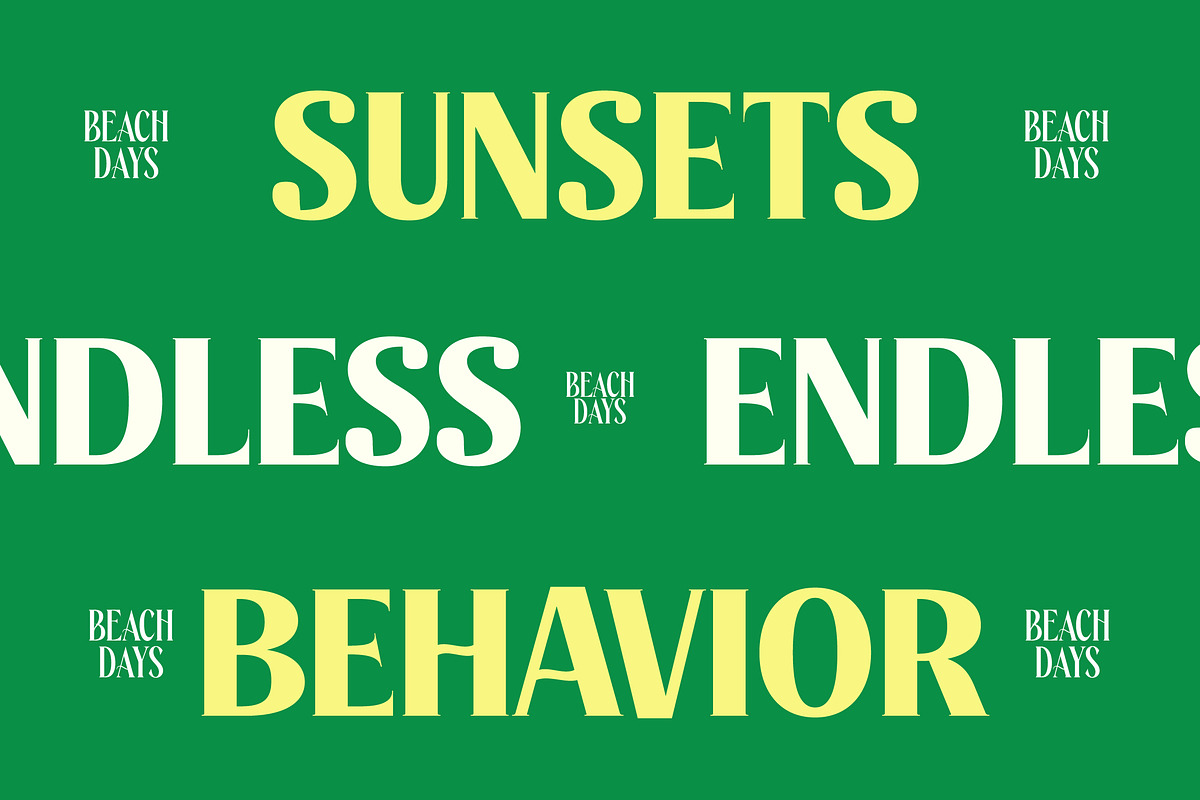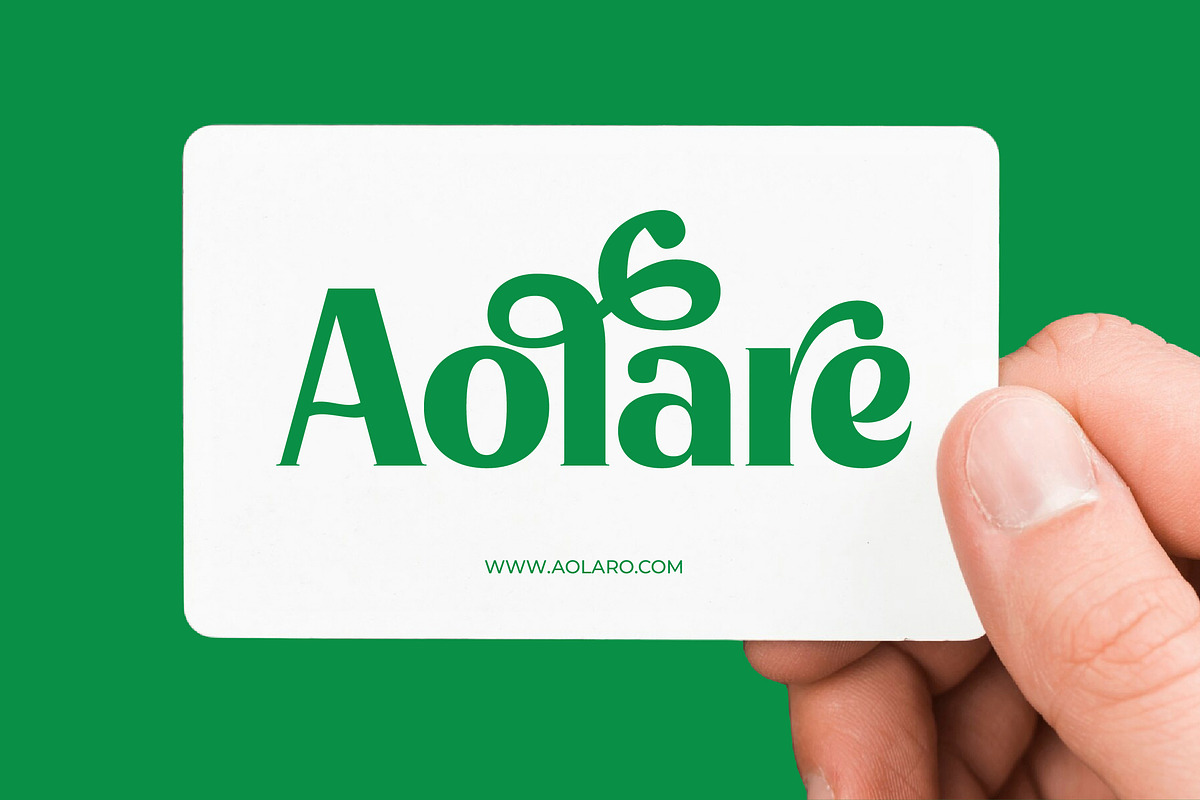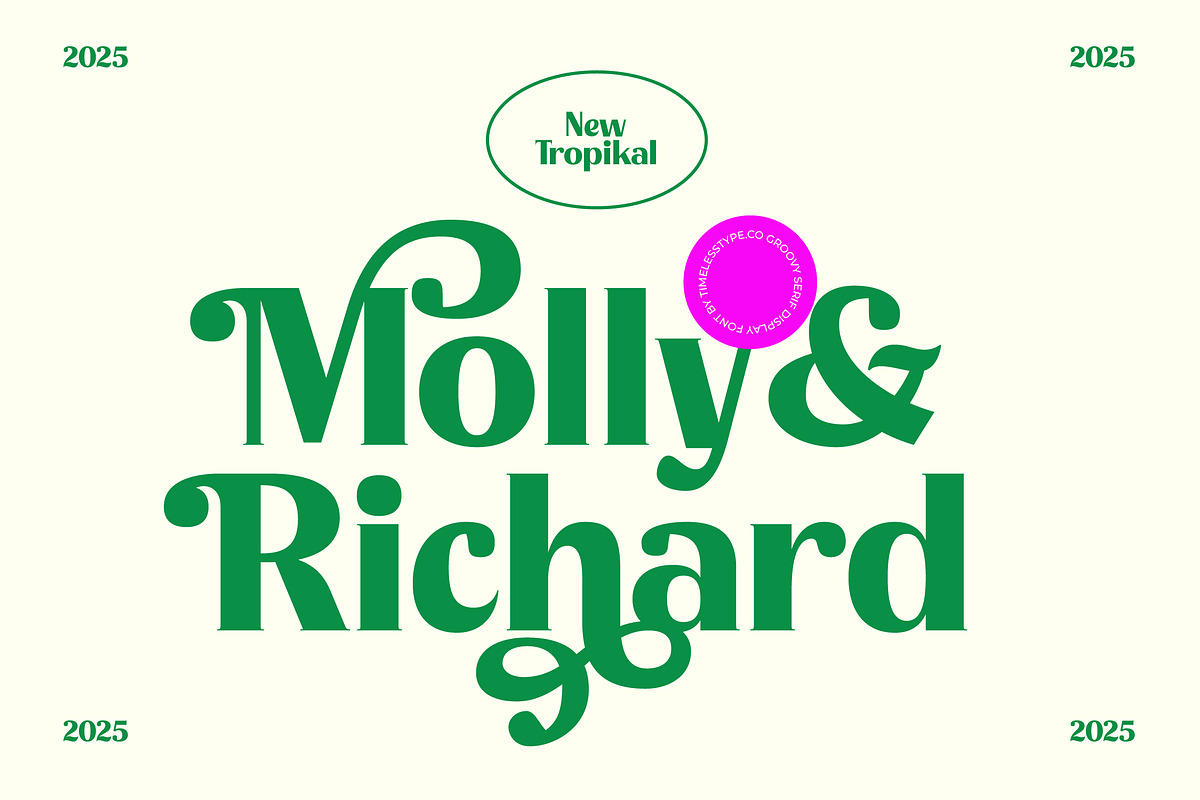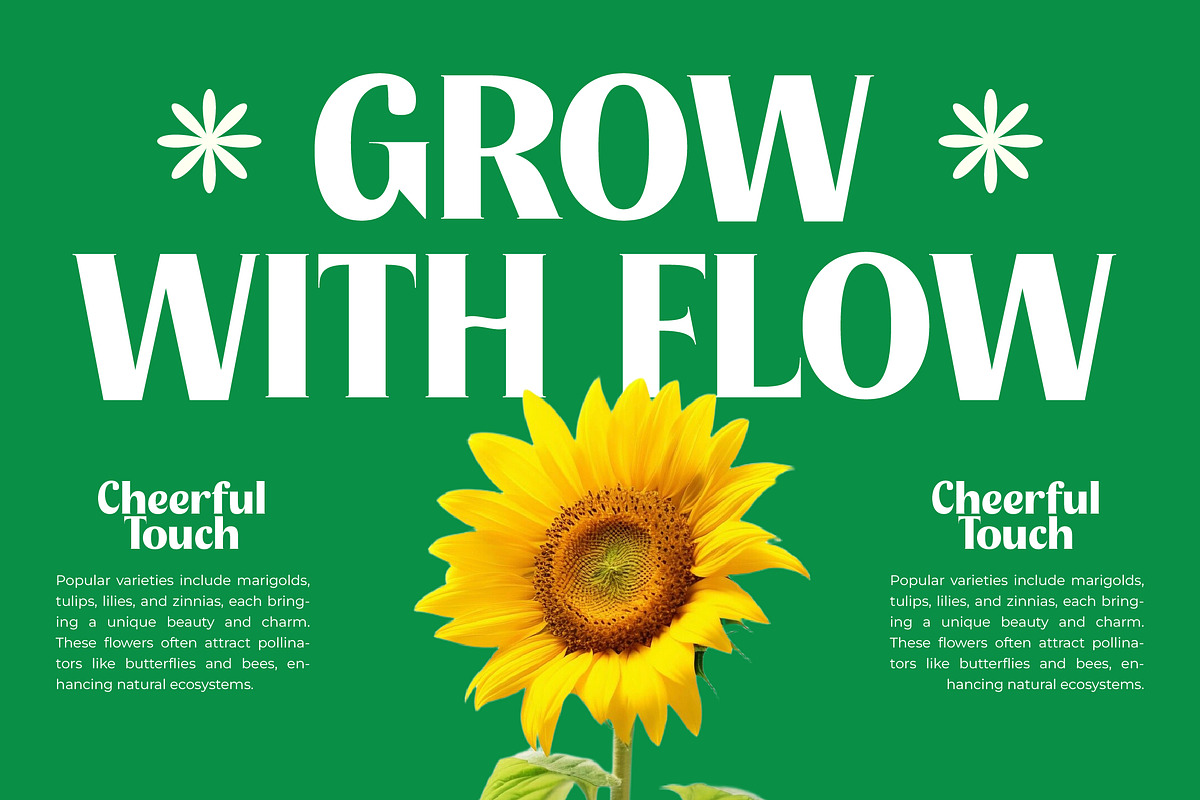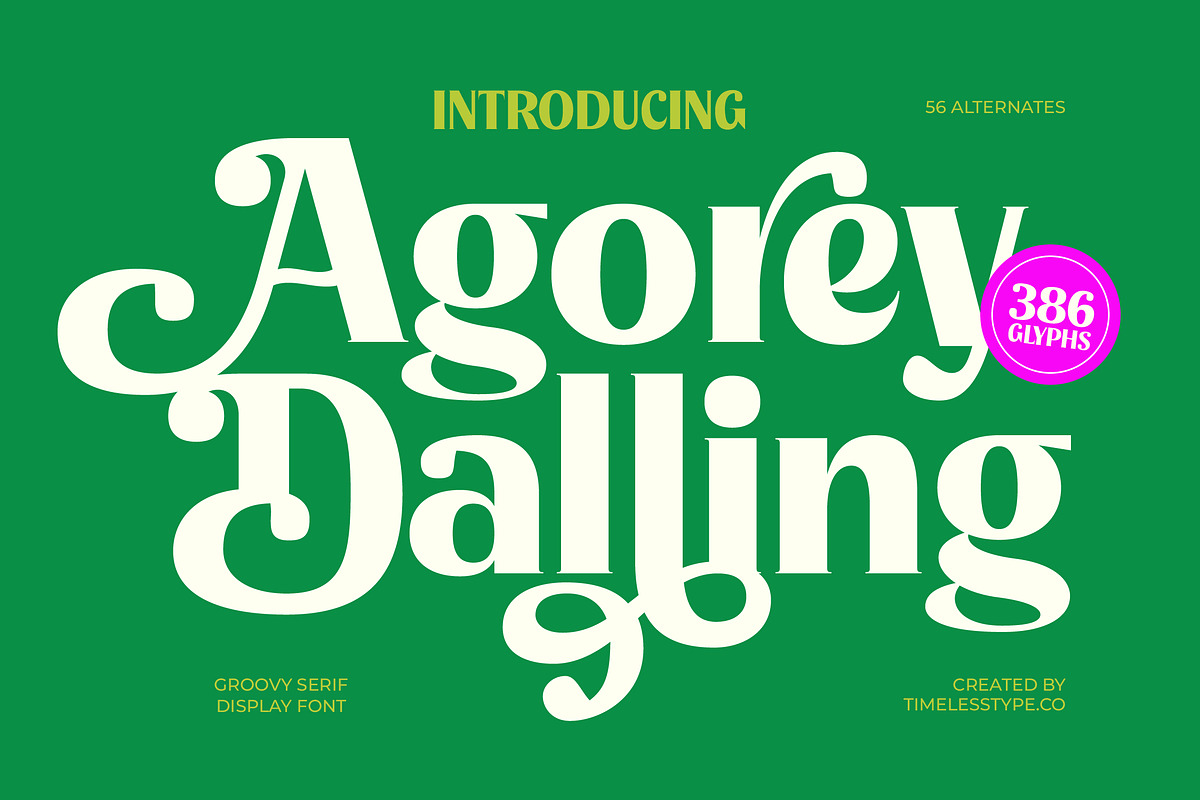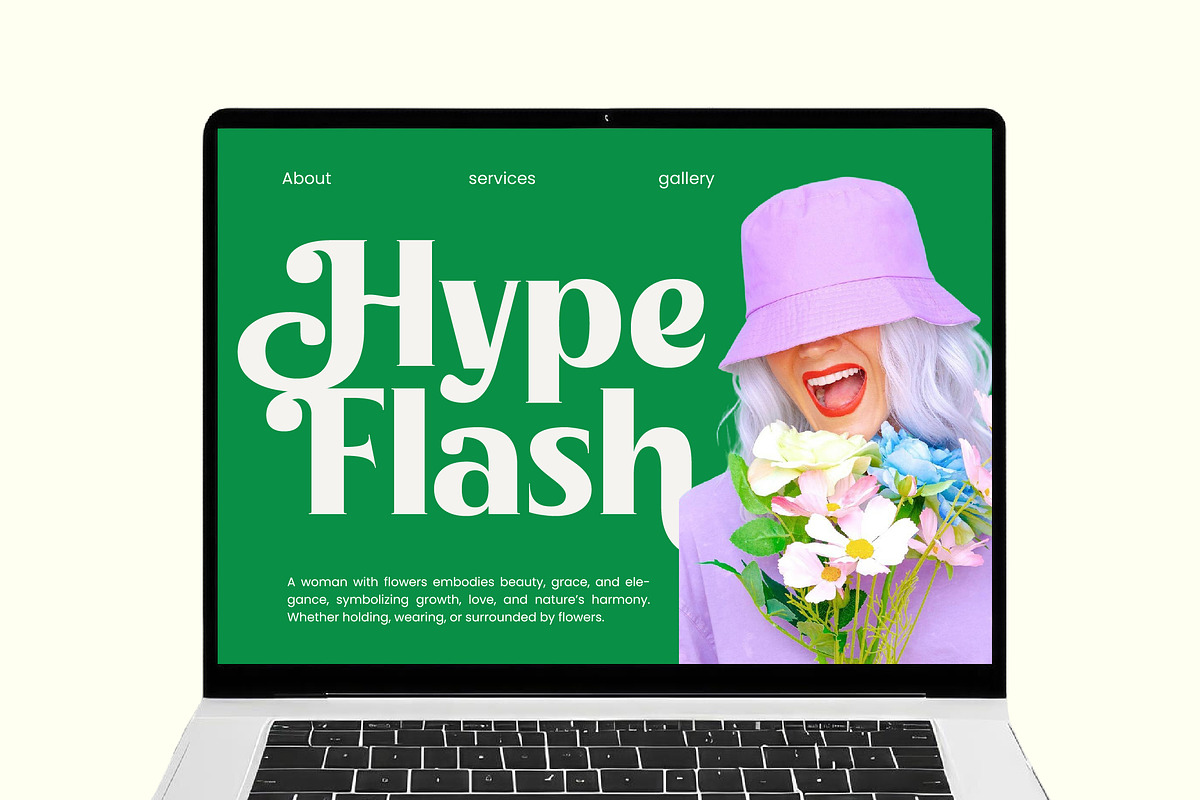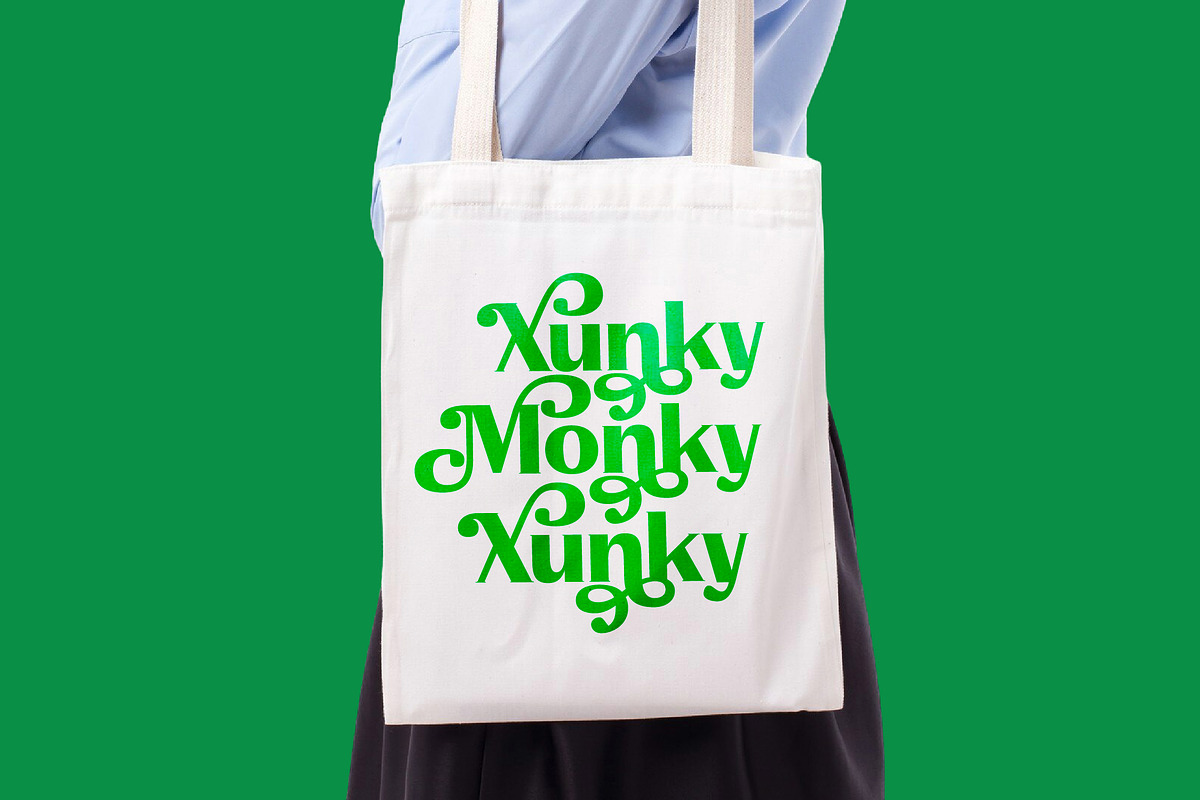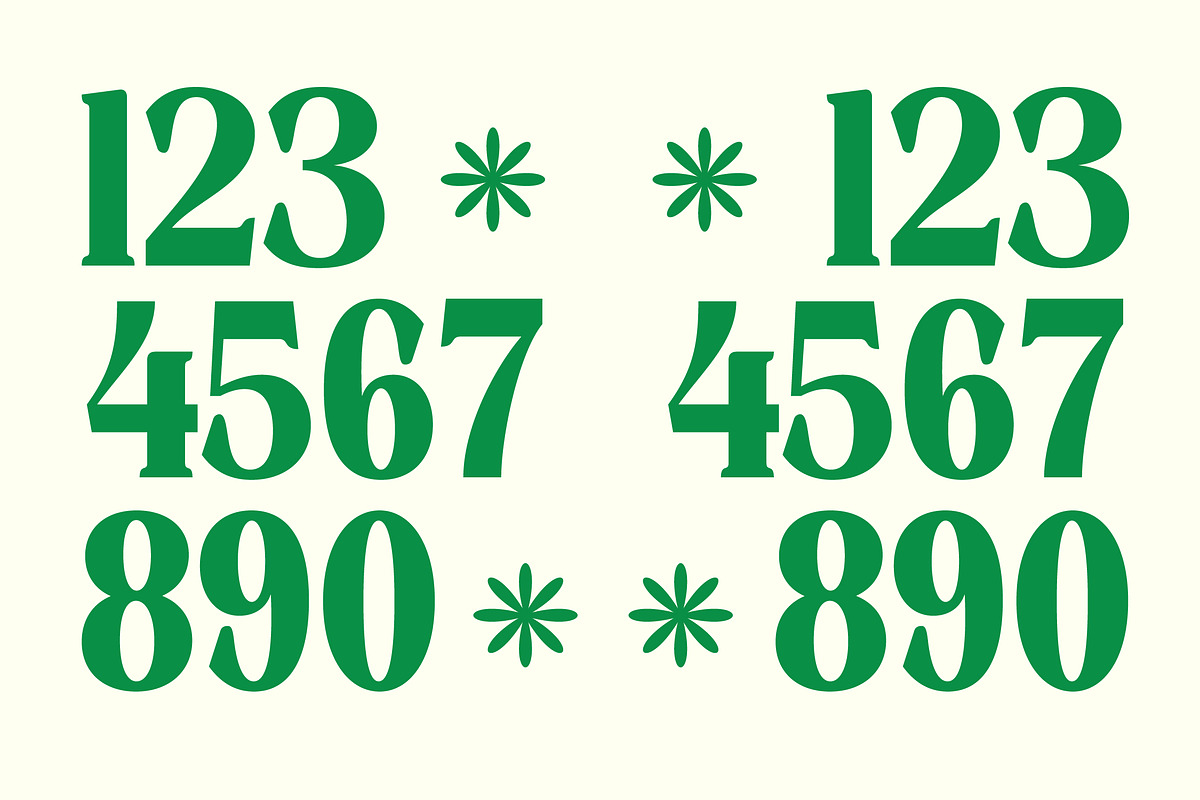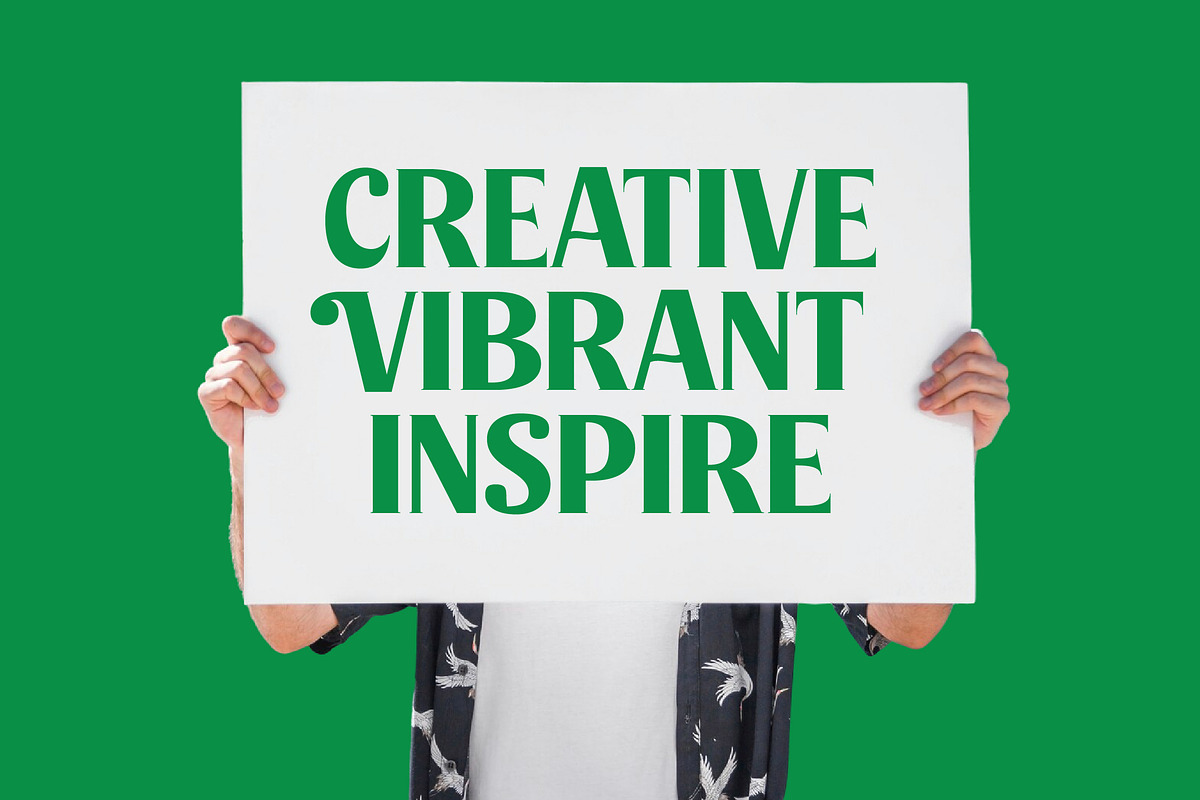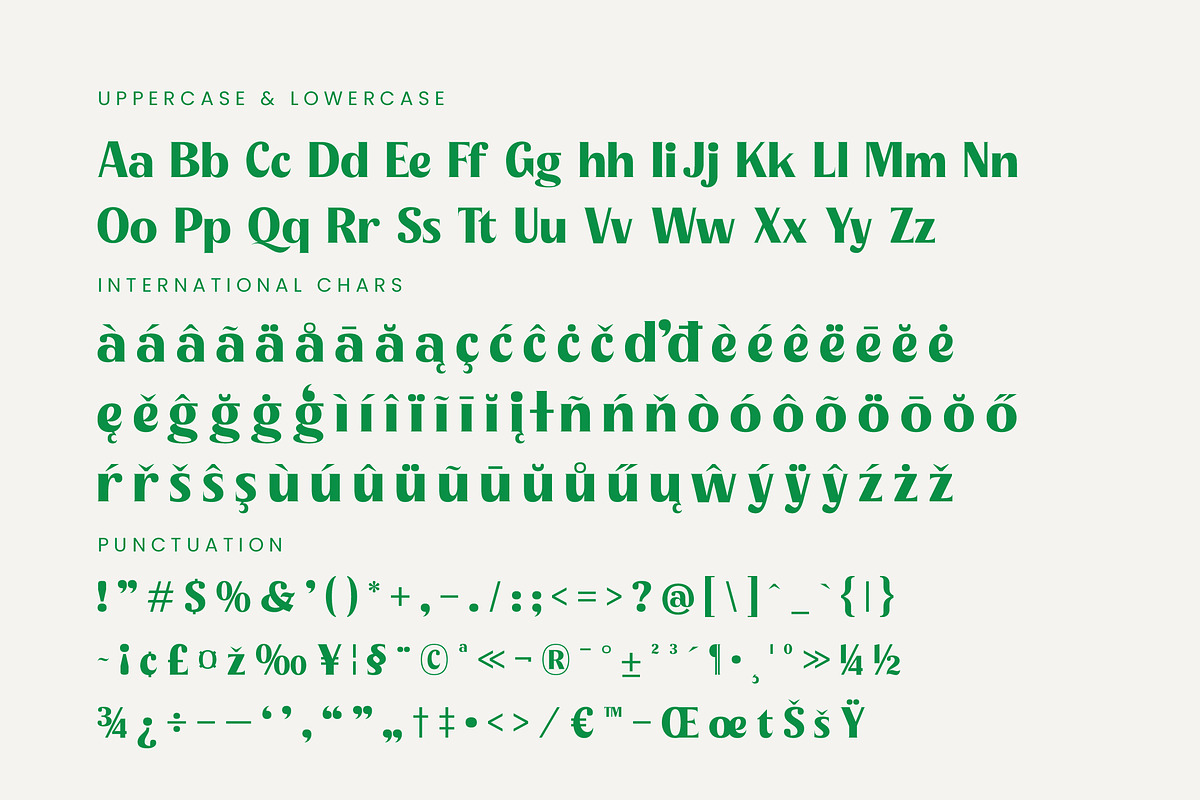
Agorey Dalling Groovy Retro Serif
Discover the enchanting charm of Agorey Dalling, a typeface designed to captivate and command attention with its rhythmic curves and sophisticated flair. This font bridges the gap between vintage nostalgia and contemporary elegance, making every character a unique piece of art.
Inspired by the soulful energy of the late 60s and 70s, this font draws from the era of psychedelic posters and high-end boutique signage. It captures a timeless aesthetic where every loop and terminal feels intentional, flowing with a liquid grace that reflects a golden age of typography.
With its bold weight and delicate hairlines, this modern serif display exudes a sense of luxury typography that is perfect for high-end projects. The high-contrast serif strokes provide a significant branding impact, ensuring that your headlines stand out as a premier editorial font choice.
Staying ahead of the modern serif trend, this typeface aligns perfectly with the current demand for editorial display fonts that feel organic and hand-crafted. It is the ultimate choice for designers seeking character-driven typography that tells a story beyond the words themselves.
This versatile typeface is an exceptional tool for logo design and comprehensive branding identity systems that require a touch of class. From high-fashion editorial layouts and product packaging to sophisticated wedding stationery and fashion lookbooks, it adapts beautifully to premium contexts.
The set is packed with over 380 glyphs, including a vast array of ligatures and unique alternates that allow for custom compositions. It also features beautiful swashes, full multilingual support, and a comprehensive range of international characters to ensure global usability.
- Ligature Alternate 56